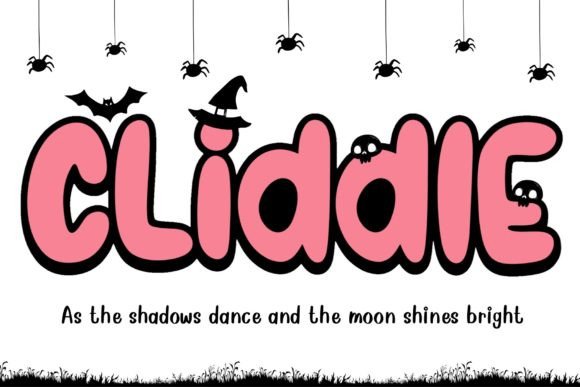
**Introducing Cliddle Font – The Spookiest Font for Your Halloween Projects!**
As the nights draw closer and the leaves turn golden brown, it's time to embrace the enchanting spirit of Halloween with a font that will make your designs dance with spooky delight! Introducing Cliddle Font – the cutest and spookiest font you'll ever encounter!
Crafted by the font masters at MyFontsShop, Cliddle Font is a display font that will cast a spell on your Halloween designs. Its charming letterforms and playful strokes will bring a smile to your face and a spooky vibe to your projects.
Whether you're creating invitations for a haunting Halloween party, designing eerie posters for a bone-chilling event, or simply adding a touch of spooky charm to your social media posts, Cliddle Font is the perfect companion for all your creative endeavors.
* **Unleash Your Creativity:** Let your imagination run wild with this versatile font that's perfect for a wide range of Halloween-themed projects. From invitations to posters and social media designs, Cliddle Font will add a touch of spooky magic to everything you create.
* **Stand Out from the Crowd:** In a world filled with ordinary fonts, Cliddle Font will help you make a statement. Its unique and eye-catching design will make your projects stand out from the crowd, leaving a lasting impression on your audience.
* **Embrace the Halloween Spirit:** With Cliddle Font, you can truly embrace the spirit of Halloween and create designs that are both enchanting and unforgettable. Its playful strokes and charming letterforms will add a touch of spooky charm to all your projects.
* **Perfect for Dark Readers:** Cliddle Font is specially designed to be easy on the eyes, even for those who prefer reading in low-light conditions. Its clear and legible letterforms ensure that your designs will be easy to read, even in the dimmest of settings.